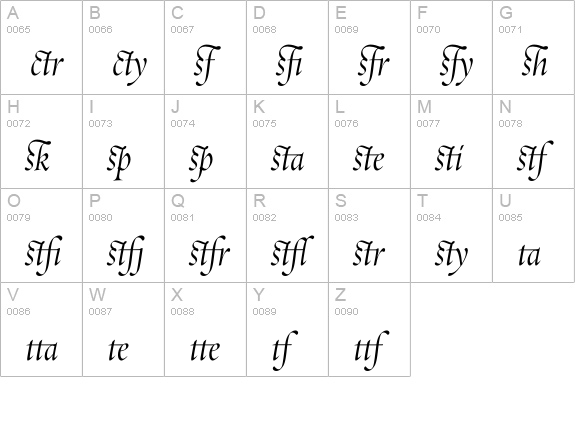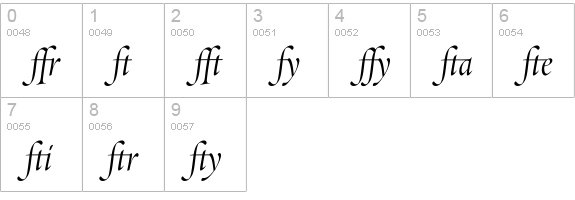
RequiemFine-HTF-ItalicLigs Font Details
Introducing RequiemFine-HTF-ItalicLigs, a captivating and elegant font that effortlessly combines sophistication with a touch of playfulness. This font is perfect for adding a touch of refinement to any project, whether it be branding, advertising, or editorial design. RequiemFine-HTF-ItalicLigs features stunning ligatures that beautifully connect characters, creating a seamless flow and enhancing readability. These ligatures add a unique and artistic touch to your text, elevating it to a whole new level of visual appeal. With its delicate curves and graceful strokes, RequiemFine-HTF-ItalicLigs exudes a sense of timeless beauty. Its italicized form adds a touch of drama and elegance, making it ideal for projects that require a touch of sophistication. But what makes RequiemFine-HTF-ItalicLigs even more enticing is the fact that it is freely available to download at FontsMarket.com. Yes, you read that right - this stunning font can be yours at no cost. Whether you're a professional designer or a passionate hobbyist, this font offers you the opportunity to create stunning visuals without breaking the bank. So why wait? Whether you're working on a personal project or a client's request, RequiemFine-HTF-ItalicLigs is the perfect font to make a lasting impression. Download it for free today at FontsMarket.com and unlock a world of endless design possibilities.